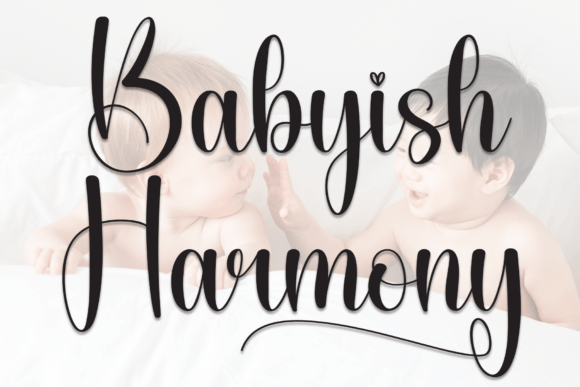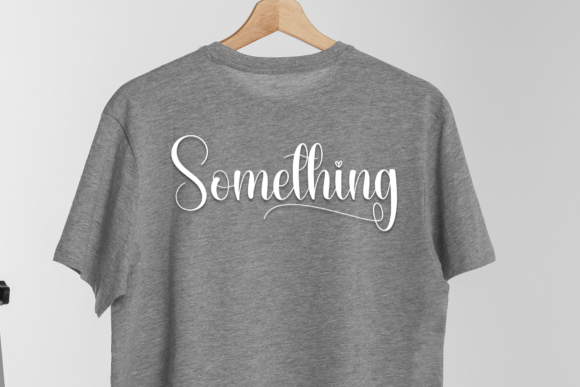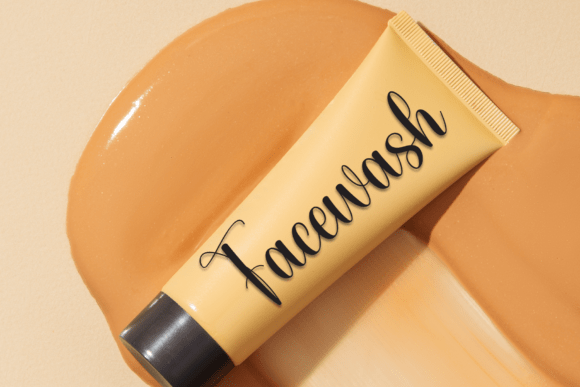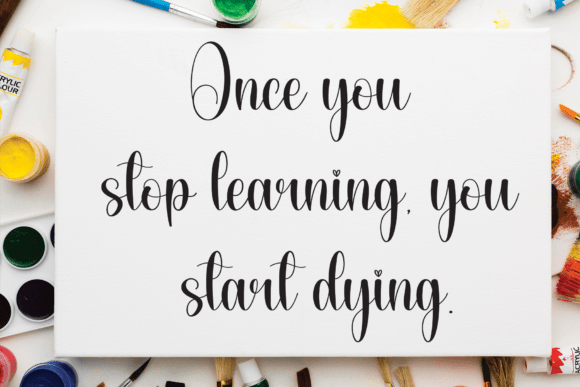
Babyish Harmony Font: Cute Script for Cricut & DIY Projects
About the Babyish Harmony Font
Step up your design game with Babyish Harmony Font, a font that exudes confidence and style. Babyish Harmony is a stylish handwritten script font that blends modern elegance with a playful touch. Its fluid strokes and charming curves bring a personal feel to any design. Ideal for logos, packaging, and invitations, this typeface adds warmth, sophistication, and creativity to every project.
Babyish Harmony’s playful yet elegant nature makes it perfect for projects needing a touch of whimsy and sophistication. It excels in logos, branding for children’s products or lifestyle brands, short headlines, and packaging design where its hand-drawn quality adds personality. Avoid using it for large blocks of body text or UI elements; its script style is less legible at smaller sizes.
Pair Babyish Harmony with a clean sans-serif like Open Sans for a balanced contrast, or a geometric sans-serif such as Futura for a more modern feel. For a more luxurious effect, consider pairing it with a classic serif typeface like Garamond. These pairings provide readability and visual stability, preventing the design from feeling overwhelming.
Its overall personality is best described as friendly and approachable, conveying warmth and a sense of youthful energy. The font works well for brands targeting a young, modern audience that values both playful design and a touch of sophistication.
Babyish Harmony Font Usage Examples
Babyish Harmony Font Example